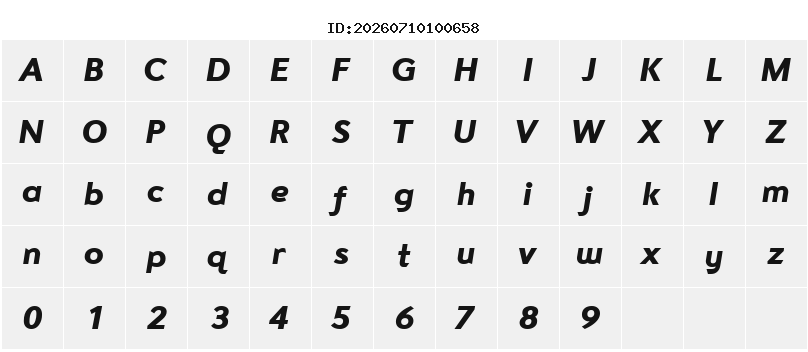
EffectraHeavySlant Preview
• Font Name: EffectraHeavySlant
• Font ID: Macromedia Fontographer 4.1.4 EffectraHeavySlant
• Full Font Name: EffectraHeavySlant
• Version: Macromedia Fontographer 4.1.4 8/16/01
• PostScript Name: EffectraHeavySlant
• Character Count: 246
About EffectraHeavySlant.ttf
EffectraHeavySlant.ttf is a modern, elegant sans-serif font designed for ultimate readability and visual harmony. Perfect for branding, headlines, web design, and print materials.